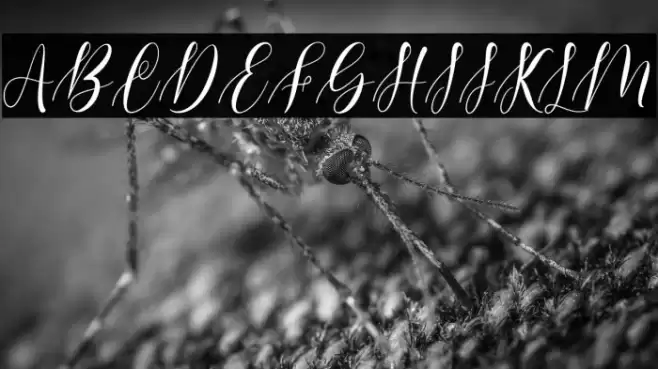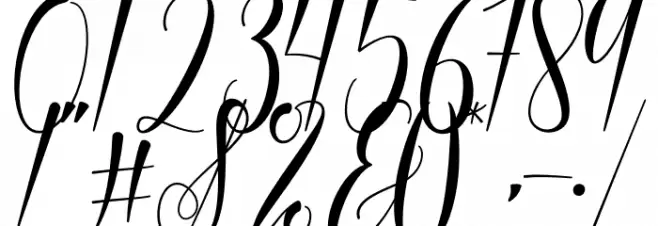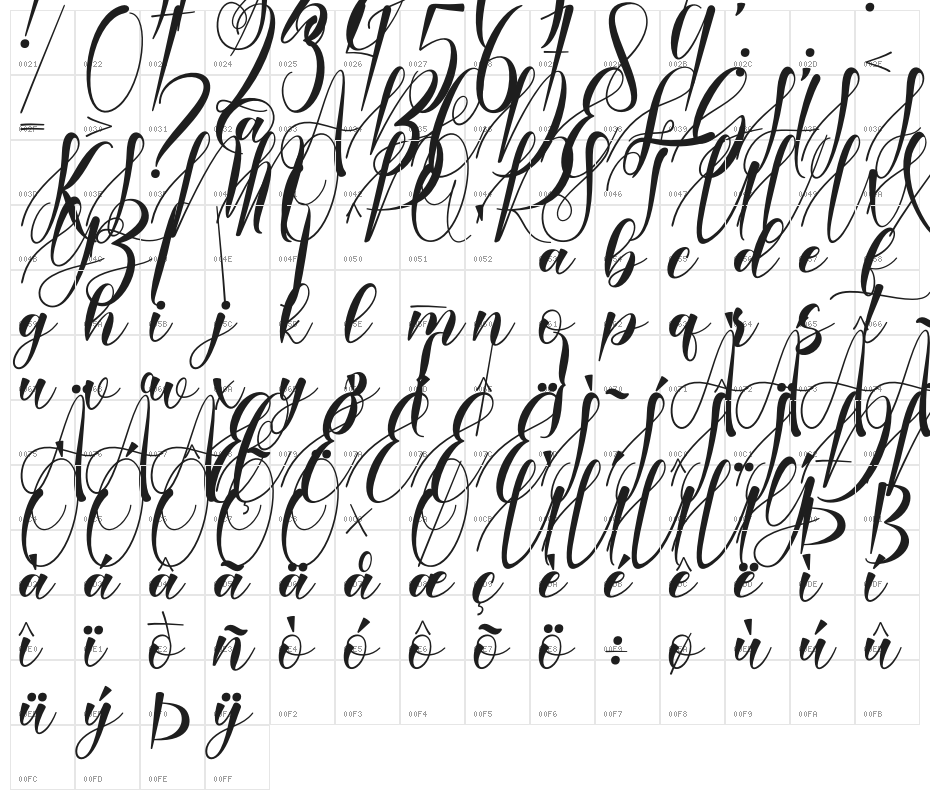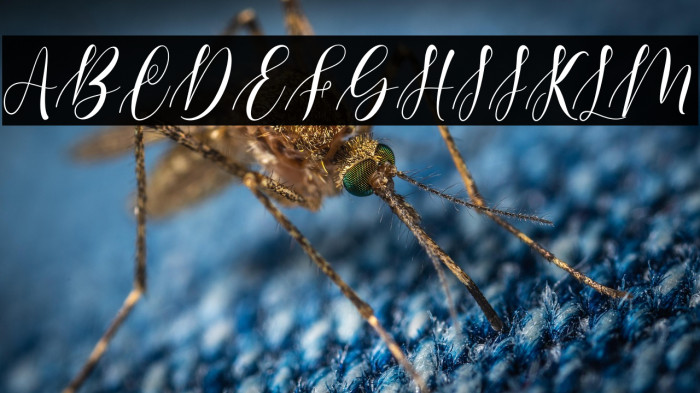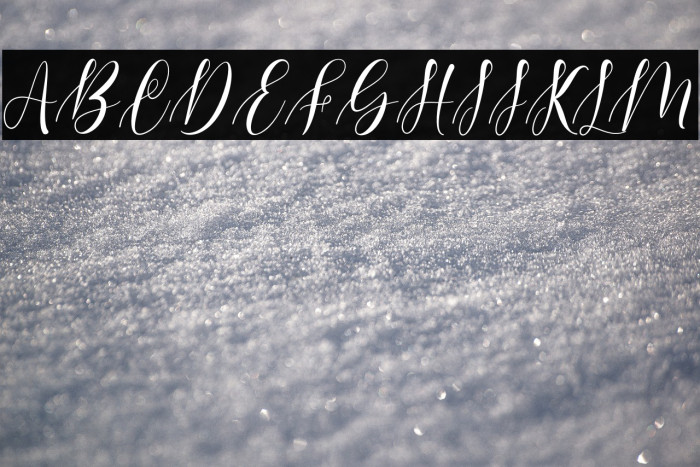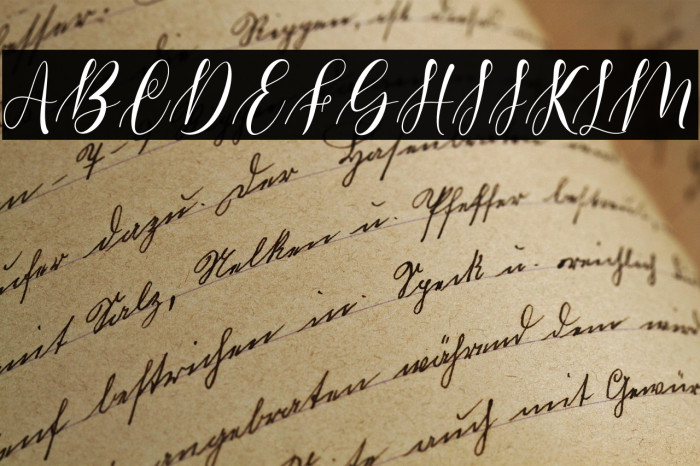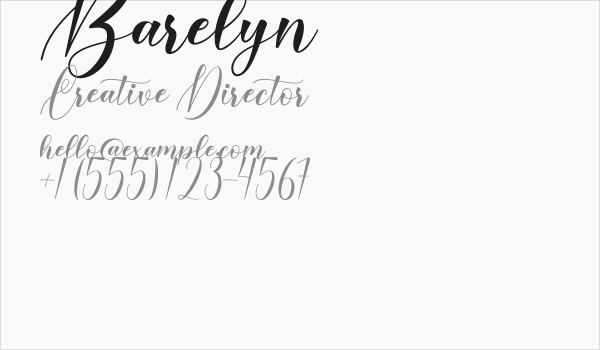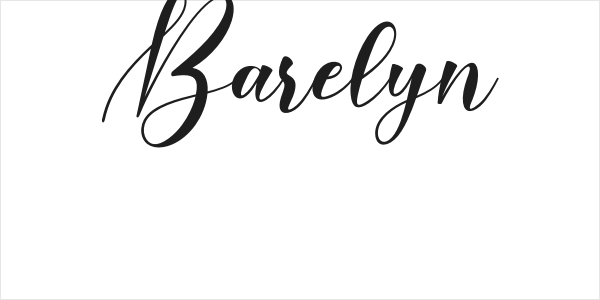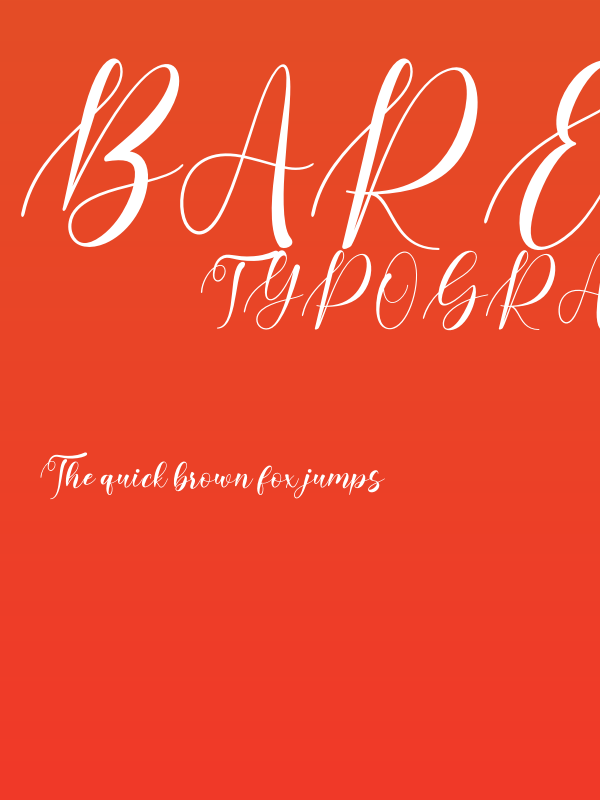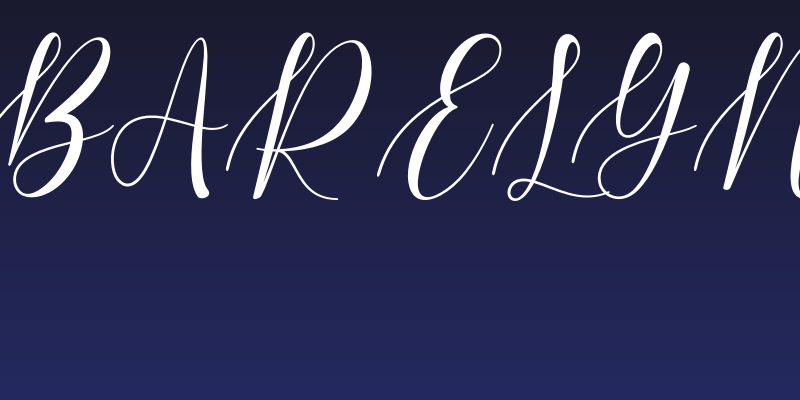
Barelyn Font
Barelyn Description
This elegant script font features flowing, cursive letters with a sophisticated and artistic flair. The uppercase letters are characterized by their tall, graceful loops and swashes, giving them a sense of movement and fluidity. The lowercase letters maintain a consistent style, with smooth, connected strokes that enhance readability while preserving the font's decorative nature. The numerals are stylishly curved, complementing the overall aesthetic. Special characters are thoughtfully designed, integrating seamlessly with the rest of the font. This font's artistic quality makes it suitable for creative and formal applications.
An elegant script font with flowing, cursive letters and artistic flair from Uncategorized fonts.
- Proposed Projects: Ideal for wedding invitations, greeting cards, branding, and elegant logos.
- Use Case: Logos, Invitations, Decorative text